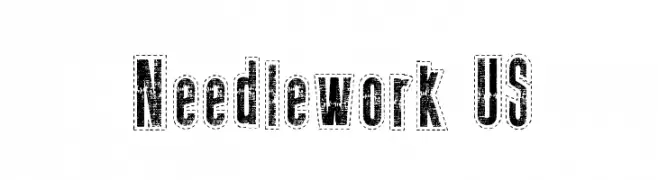
A textured, embroidery-inspired font with a bold, handcrafted look.
( Fonts by Mike Wolf )
A bold, textured font with a woven pattern, ideal for dynamic and modern designs.
( Fonts by Jeri Ingalls - littlehouse.homestead.com )
A playful, baseball-themed font with characters enclosed in baseball shapes.
( www.behance.net/rasdesign )
A bold, embroidered-style font with a playful and decorative design.
( Fonts by Galdino Otten - galdinootten.com )
A playful, embroidered-style font with a bold, textured appearance.
( Fonts by Galdino Otten - galdinootten.com )
A bold, decorative font with a distressed, vintage texture and dotted outline.
( Font by kingthingsfonts.co.uk )
A whimsical font inspired by sewing, featuring needle and thread motifs.
( Fonts by Steve Cloutier - www.cloutierfontes.ca )
A bold, textured font with a denim-like, handcrafted appearance.